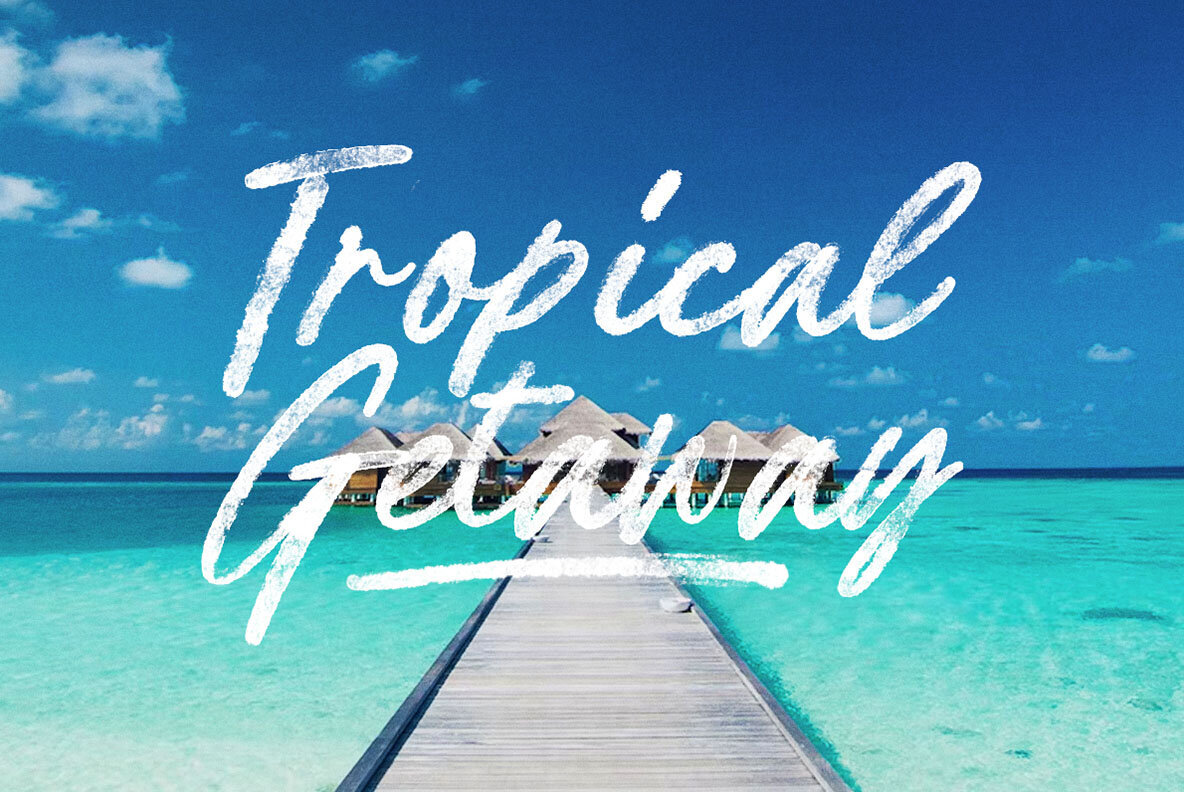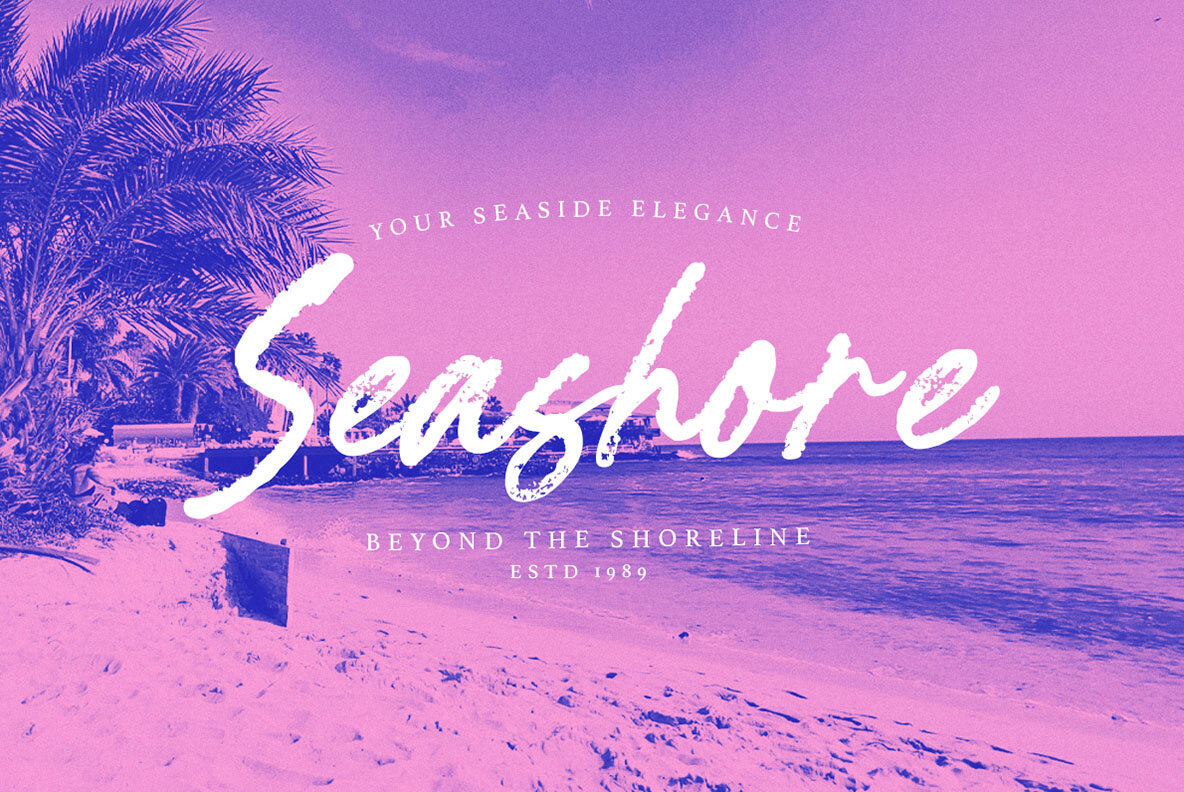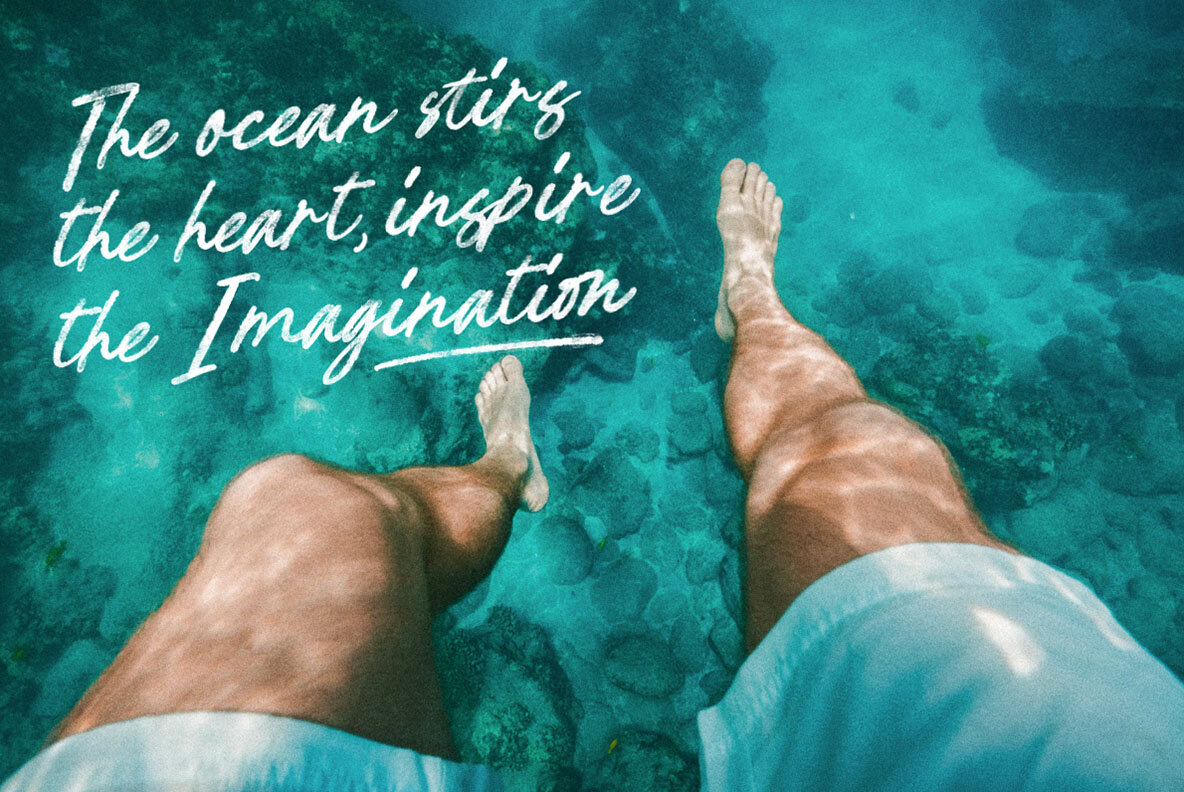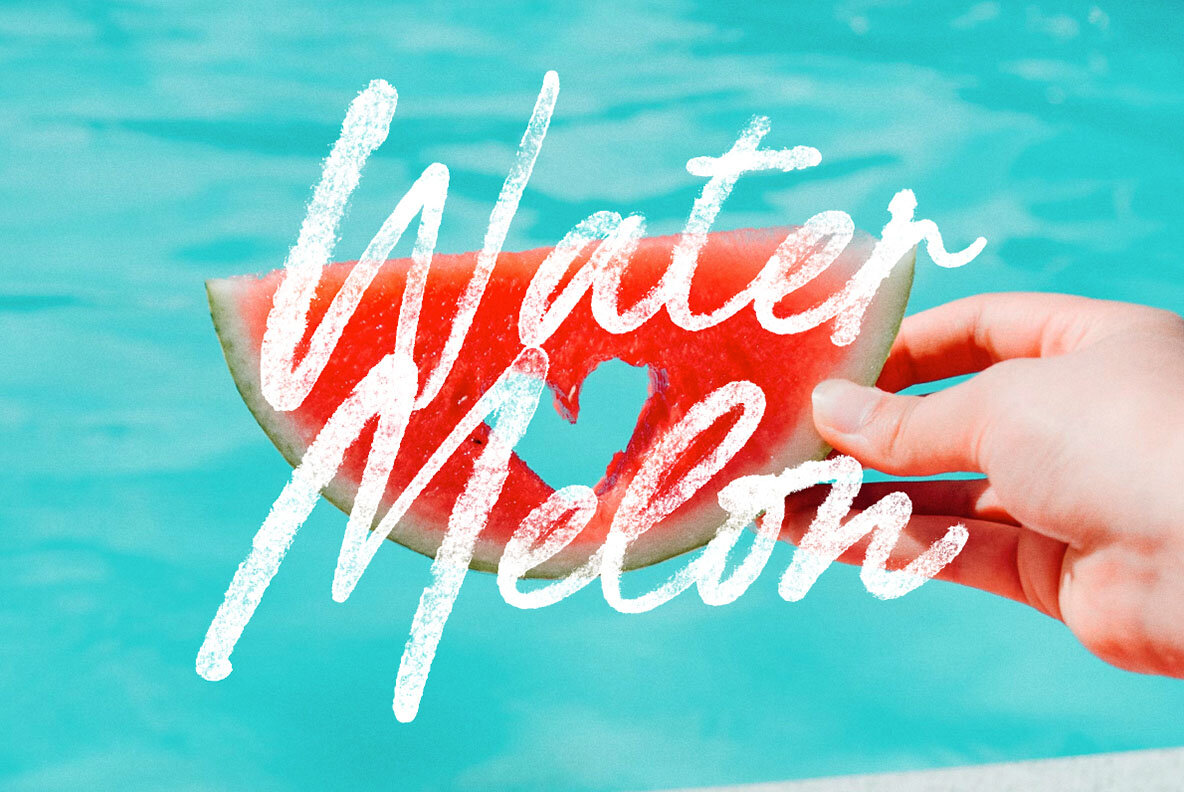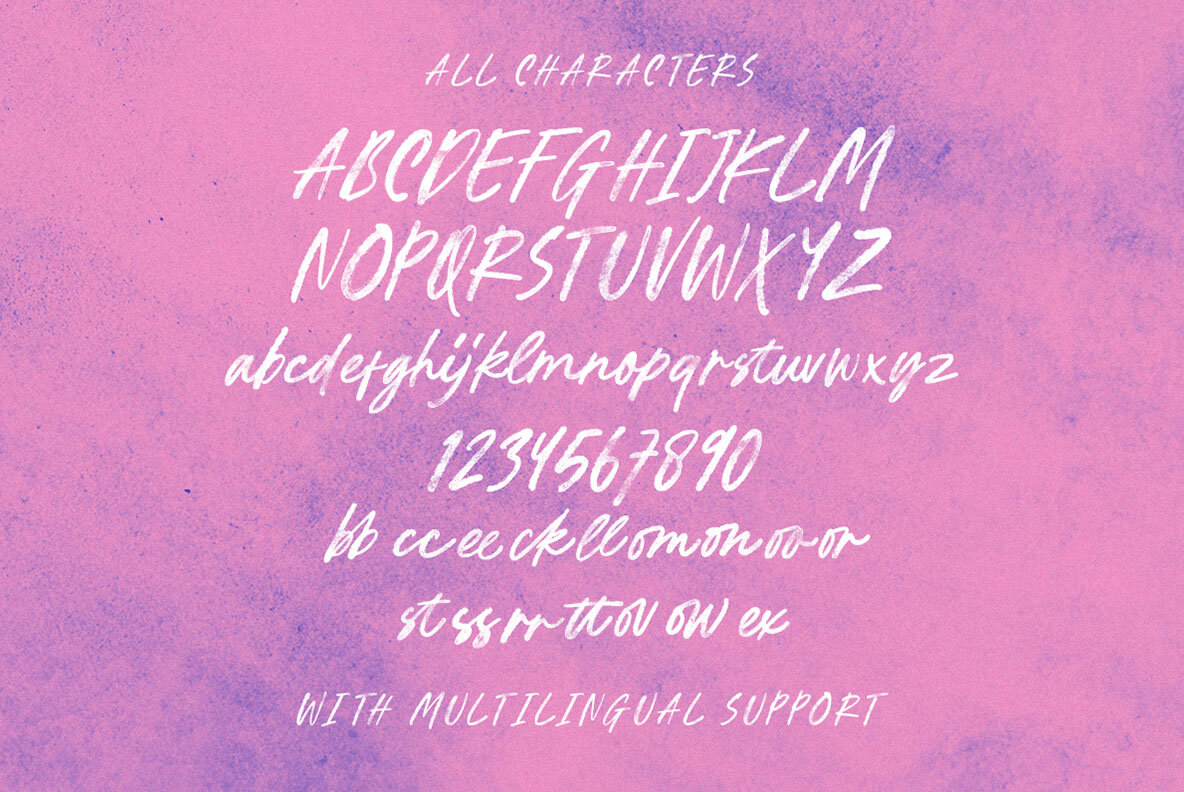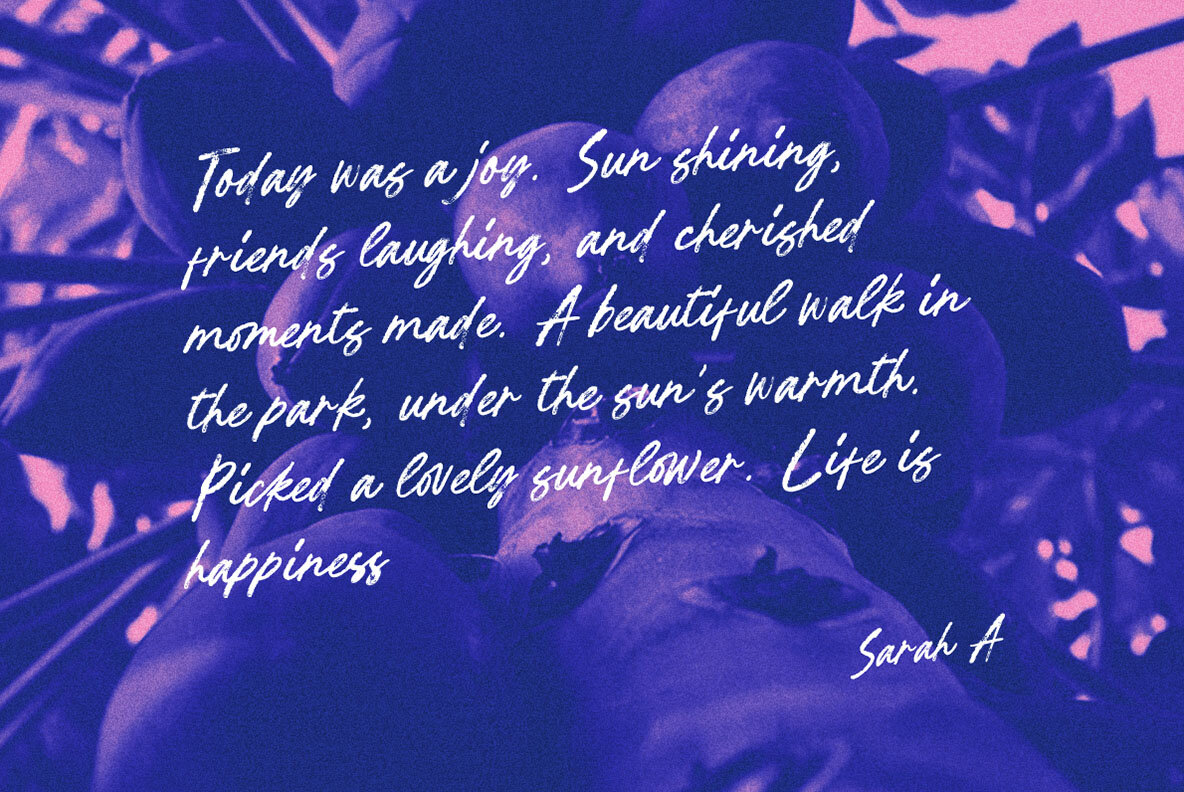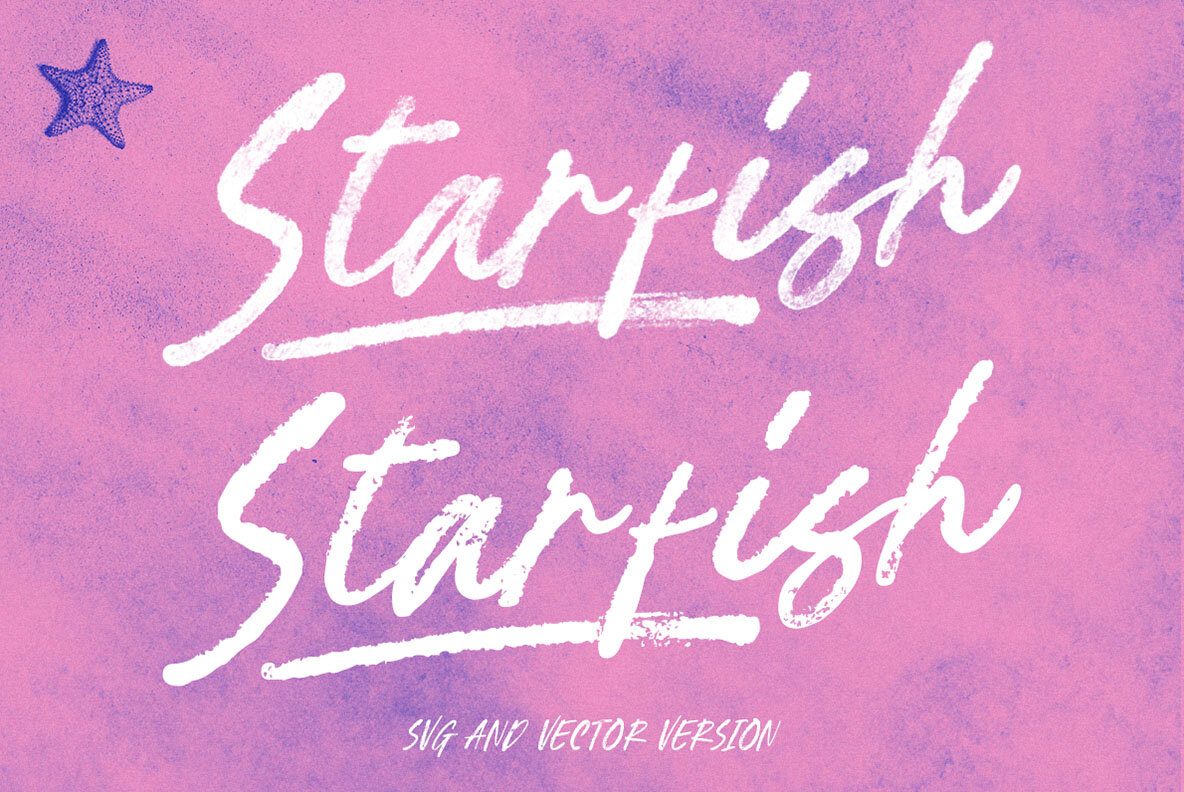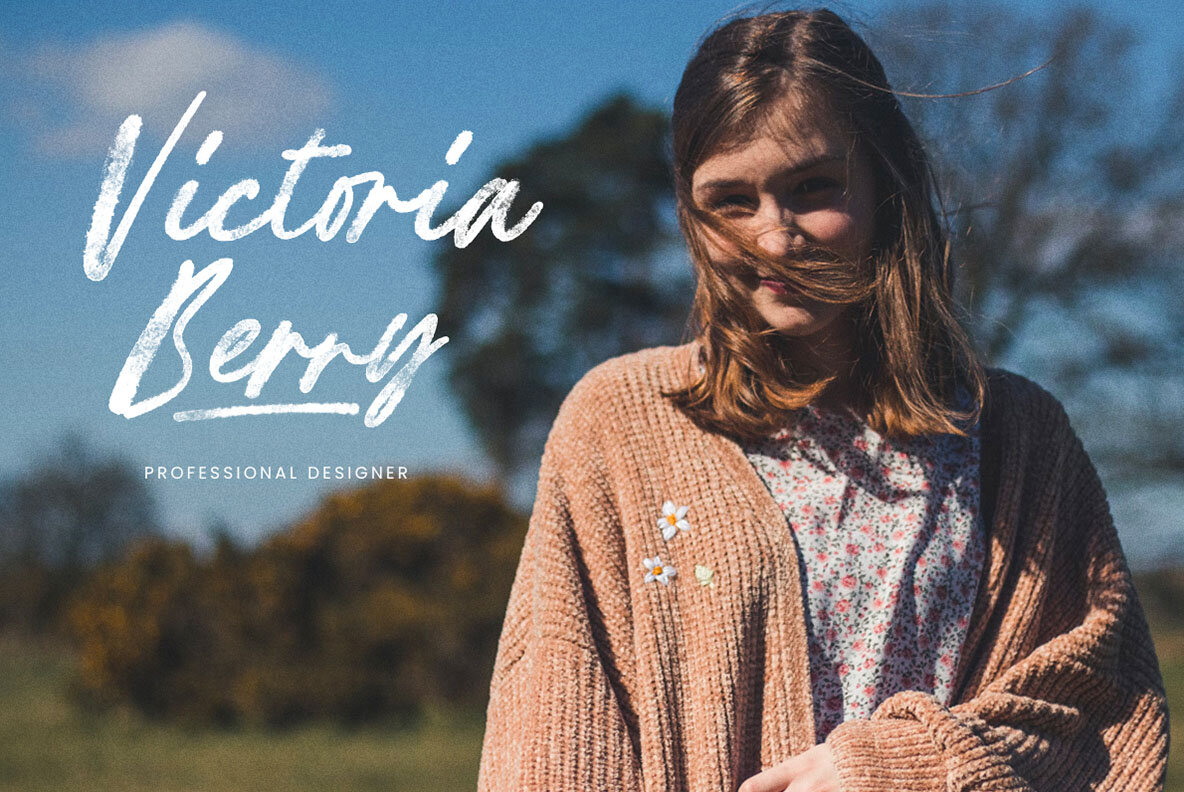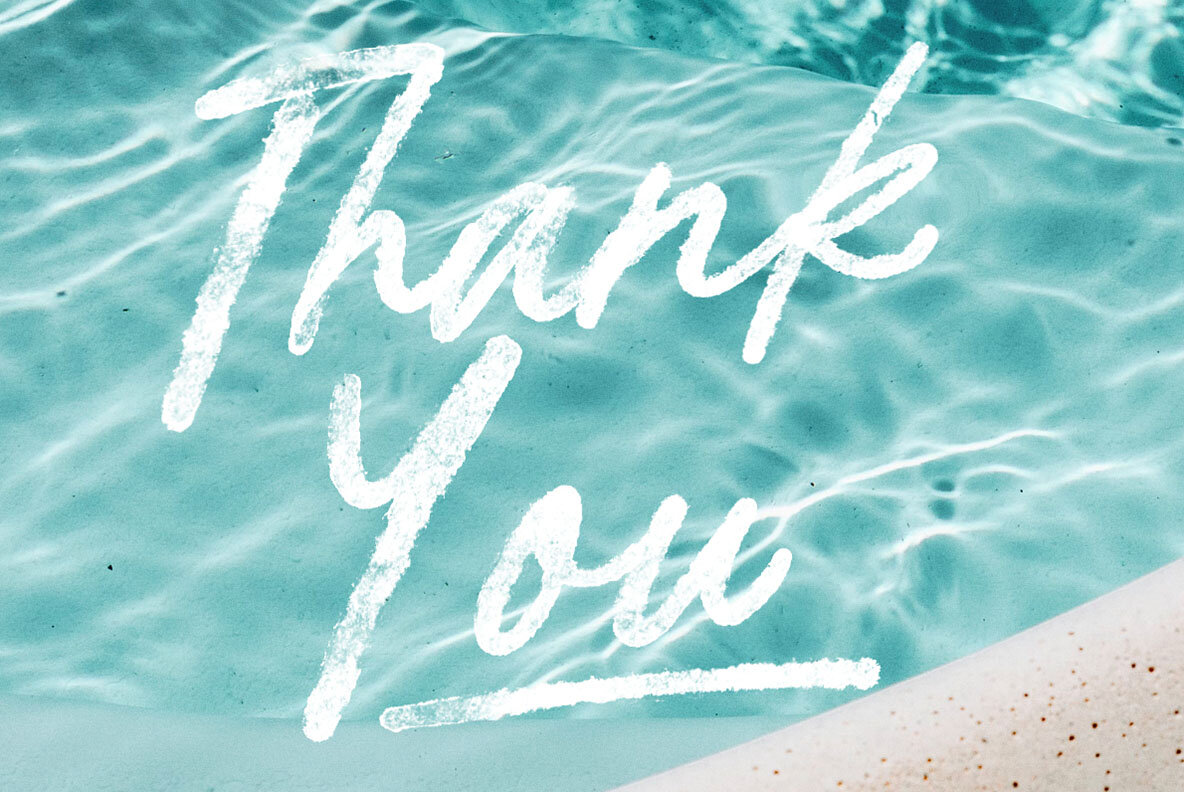
Better Wednesday Font
Better Wednesday Solid
Better Wednesday is a SVG typeface with brush textured. Available in two types, solid version and SVG version. This type of font perfectly made to be applied such as invitations, labels, logos, magazines, books, greeting / wedding cards, packaging, fashion, make up, stationery, novels, labels or any type of advertising purpose. Features: